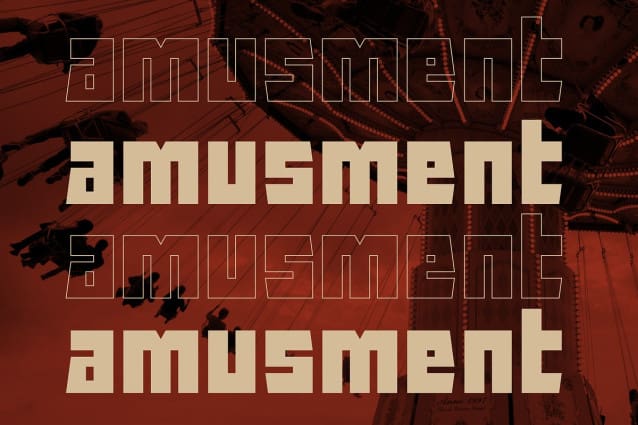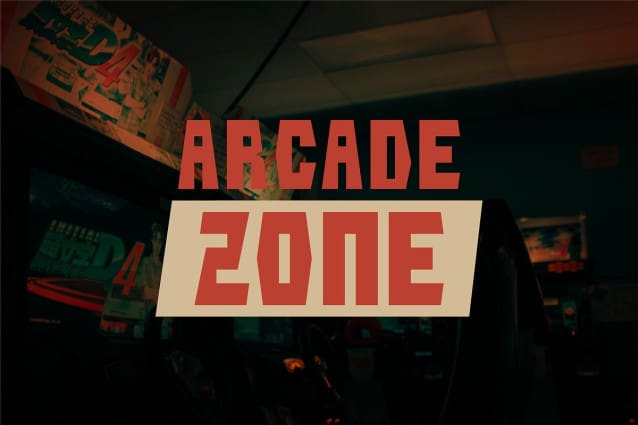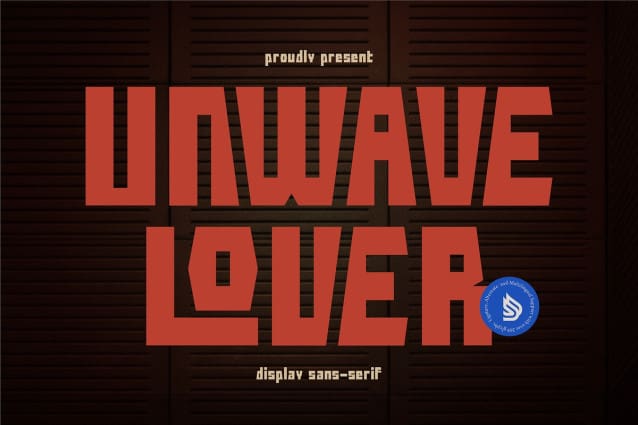
Unwave Lover Font
Unwave Lover Font | Display Sans Serif, from Denustudios, suitable for any projects such as: logos, branding projects, homeware designs, product packaging, mugs, quotes, posters, shopping bags, t-shirts, book covers, name card, invitation cards, greeting cards, label, photography, watermark, special events, and all your other lovely projects that need a Display Sans Serif Font taste.